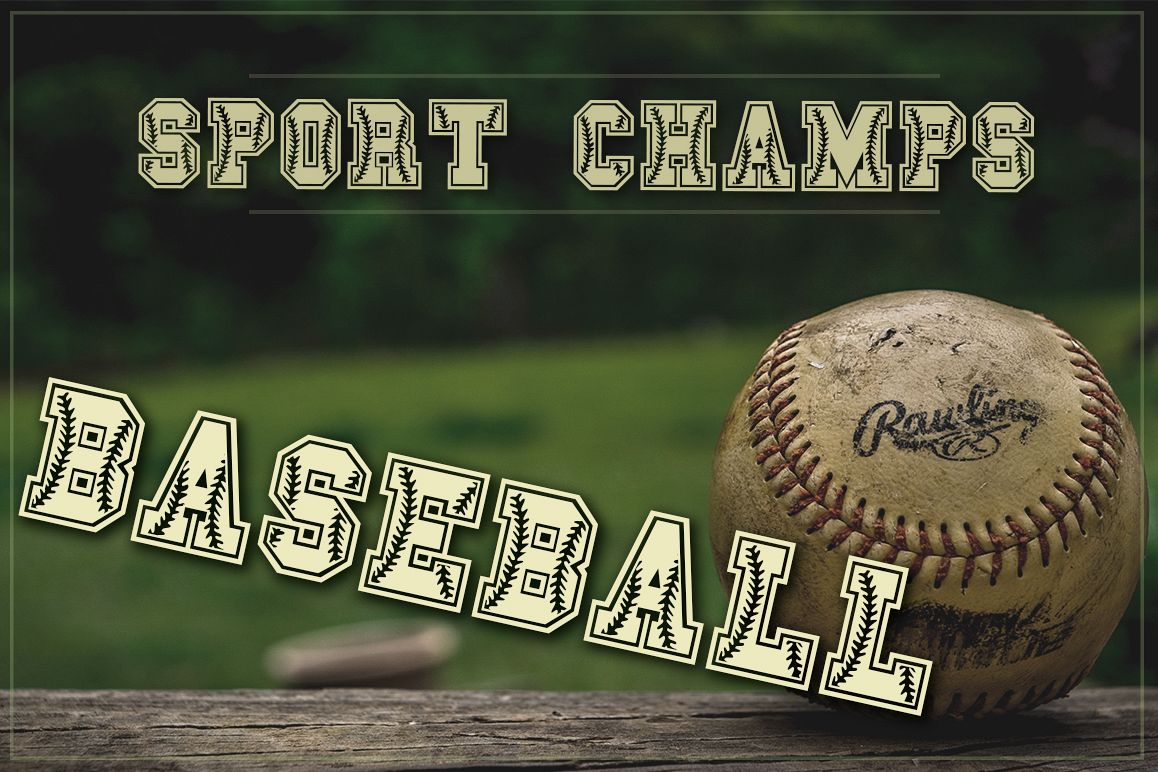
Baseball Font | Softball Font
Sport Champs Baseball
If you had seen my fonts before, you know that I like creating playful fonts. This font is no different.
- Sport Champs Baseball. Includes uppercase A-Z letters, numbers and punctuation.
Baseball Font | Softball Font